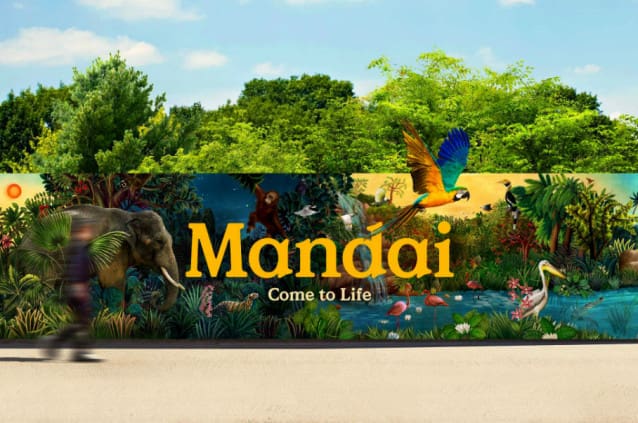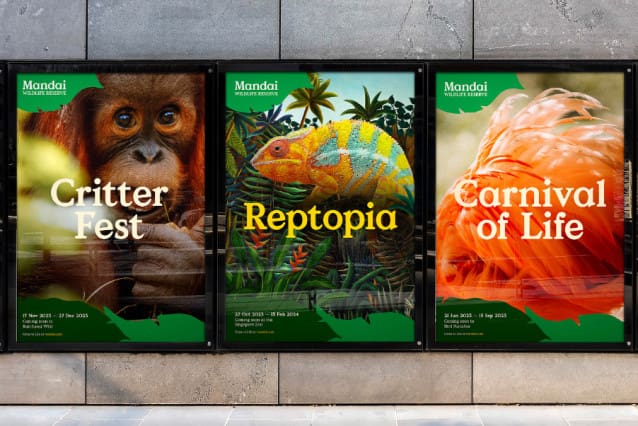
Mandai Font
Mandai Font, This serif font is stylish and sophisticated. It has a classic feel with thin strokes, sharp angles, and elegant curves. It is perfect for any project looking to add a touch of class. This font is PUA encoded which means you can access all glyphs and swashes effortlessly!
The MandaiWildlife Group is a wildlife and conservation organization that manages the majority of zoos in Singapore including the Singapore Zoo, the Night Safari, the Jurong Bird Park and the (recently renamed) River Wonders. Long renowned for its serenity, beauty and dedication to protecting animals and the natural environment, The MandaiWildlife Group required a refreshed identity that united the groups various locations and outputs, reflected Singapore’s wildlife heritage, and cemented their position as a global champion for biodiversity.